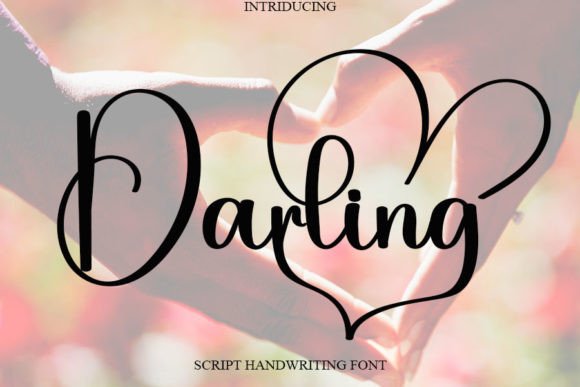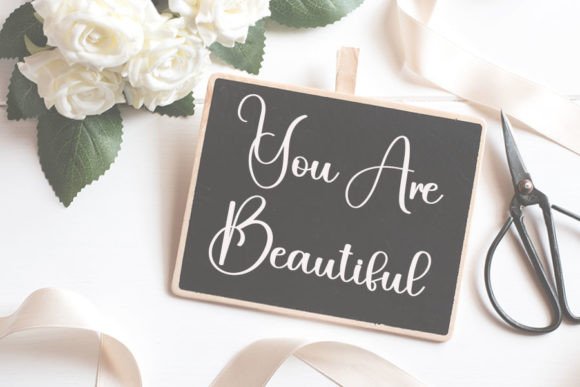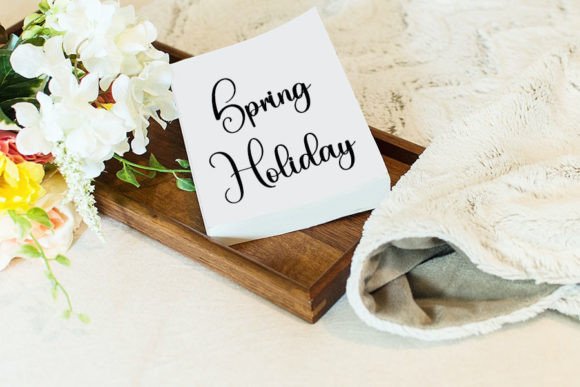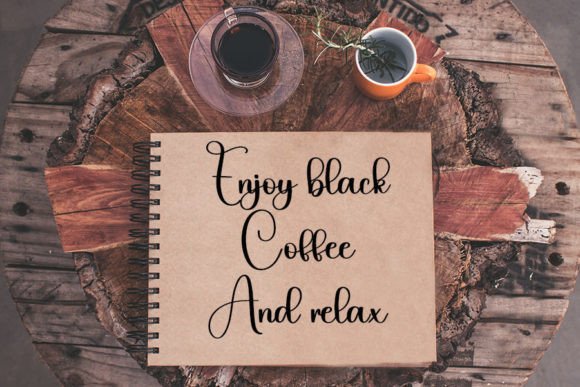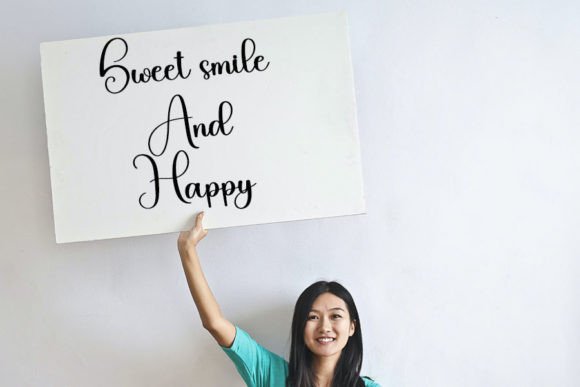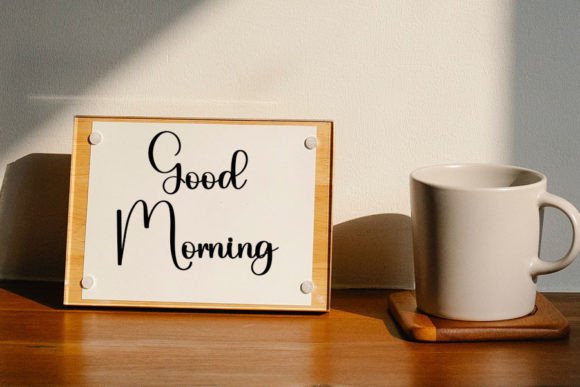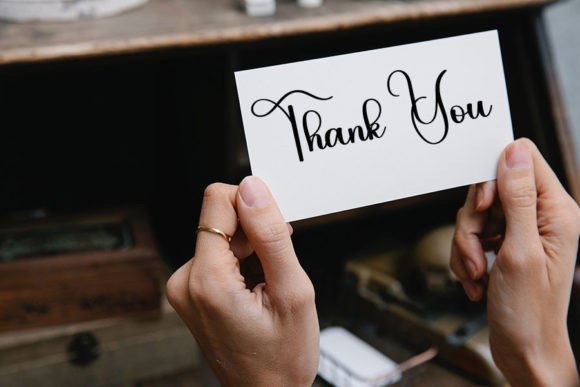
Darling Font
About Darling Font
Darling, a sweet and beautiful handwritten font, brings a touch of luxury and elegance to your design projects. With characters that dance along the baseline, this font adds a spark of sophistication to any creative endeavor.
The charm of Darling lies in its handwritten style, which exudes sweetness and beauty. The characters gracefully flowing along the baseline give the font a dynamic and lively quality, making it perfect for projects where a touch of luxury is desired.
Consider using Darling for a range of design applications, from branding and product packaging to invitations and social media graphics. Its versatility allows it to adapt seamlessly to various contexts, adding a luxurious spark to each project.
The handwritten elegance of Darling extends to both digital and print materials. Whether you’re creating online visuals for websites and social media or designing printed materials like invitations and posters, Darling stands out as a font that elevates the overall aesthetic.
In essence, Darling is more than just a font; it’s a design element that infuses your projects with a sweet and luxurious touch. Embrace the charm of Darling and let it add a spark of beauty to your design creations, making them stand out with an air of sophistication.